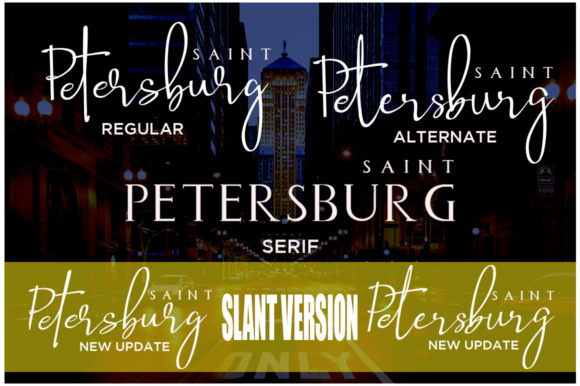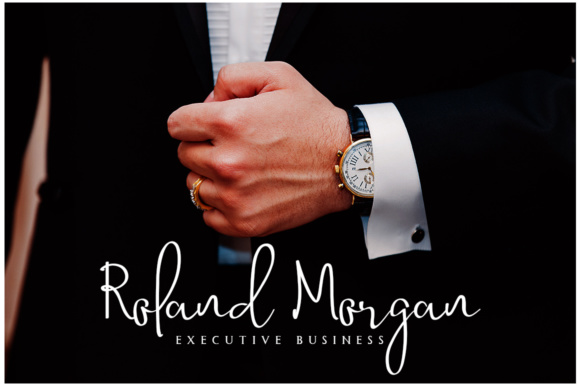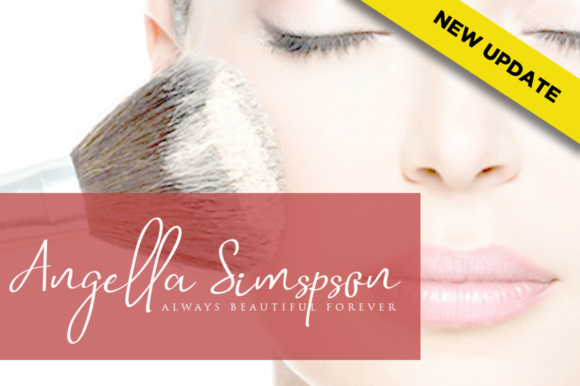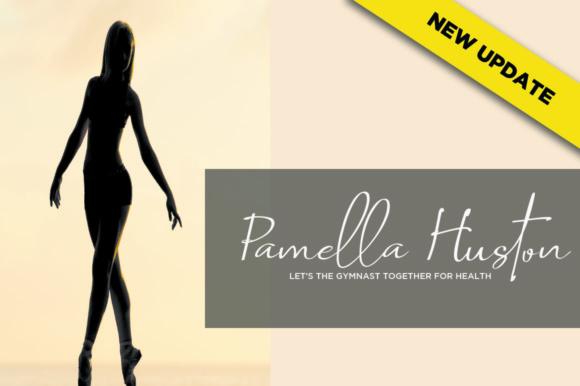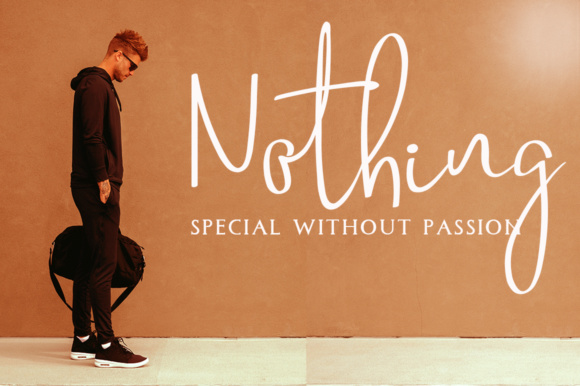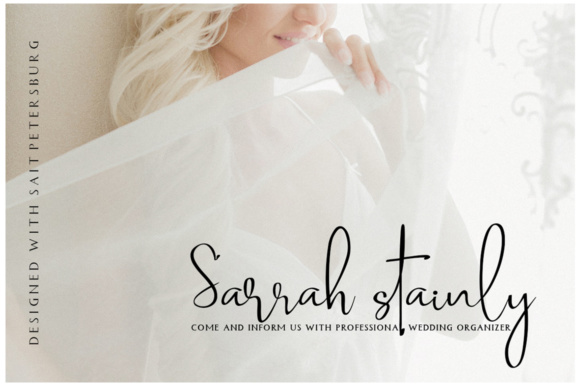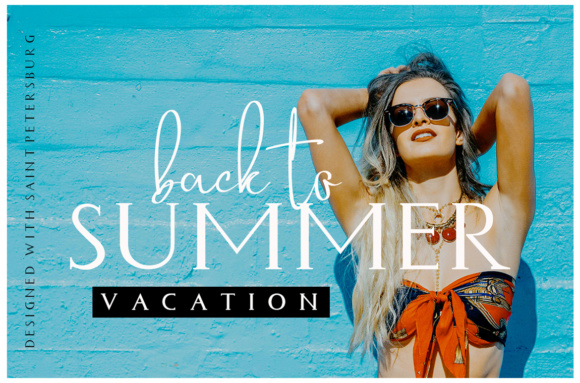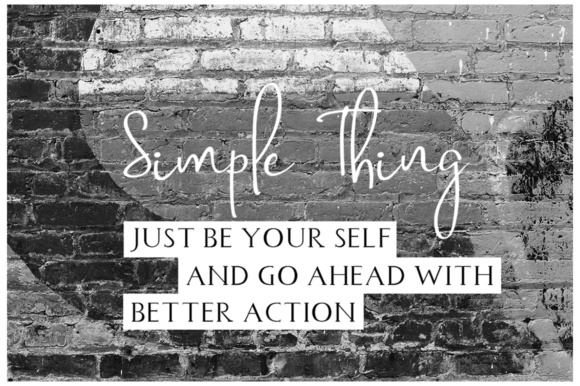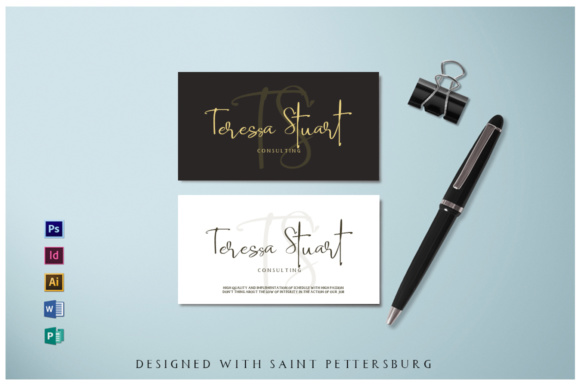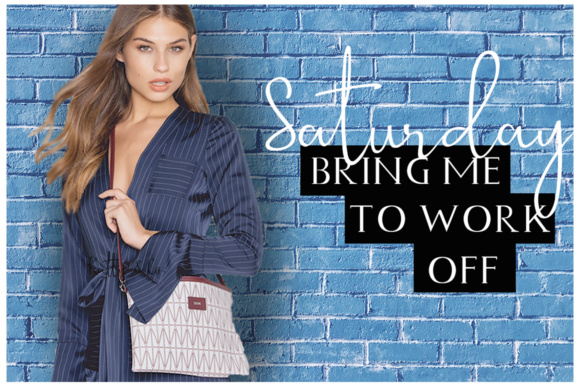
Saint Petersburg Duo Font
About Saint Petersburg Duo Font
Saint Petersburg is a fashionable, new handwriting font script with some sexy stylish extras. Saint Petersburg font was created to look as close to a natural handwritten script as possible and comes to life as if you are writing it yourself.. Saint Petersburg is good to combine with Serif fonts.